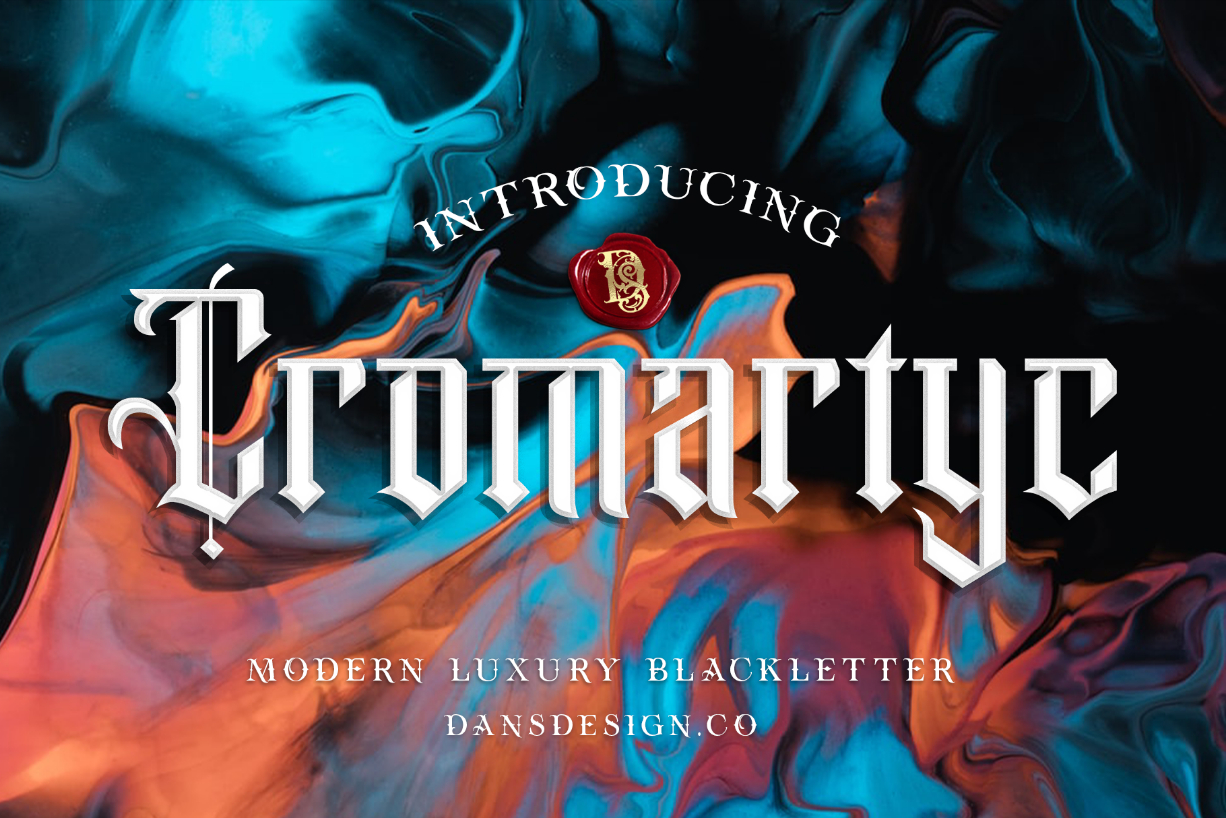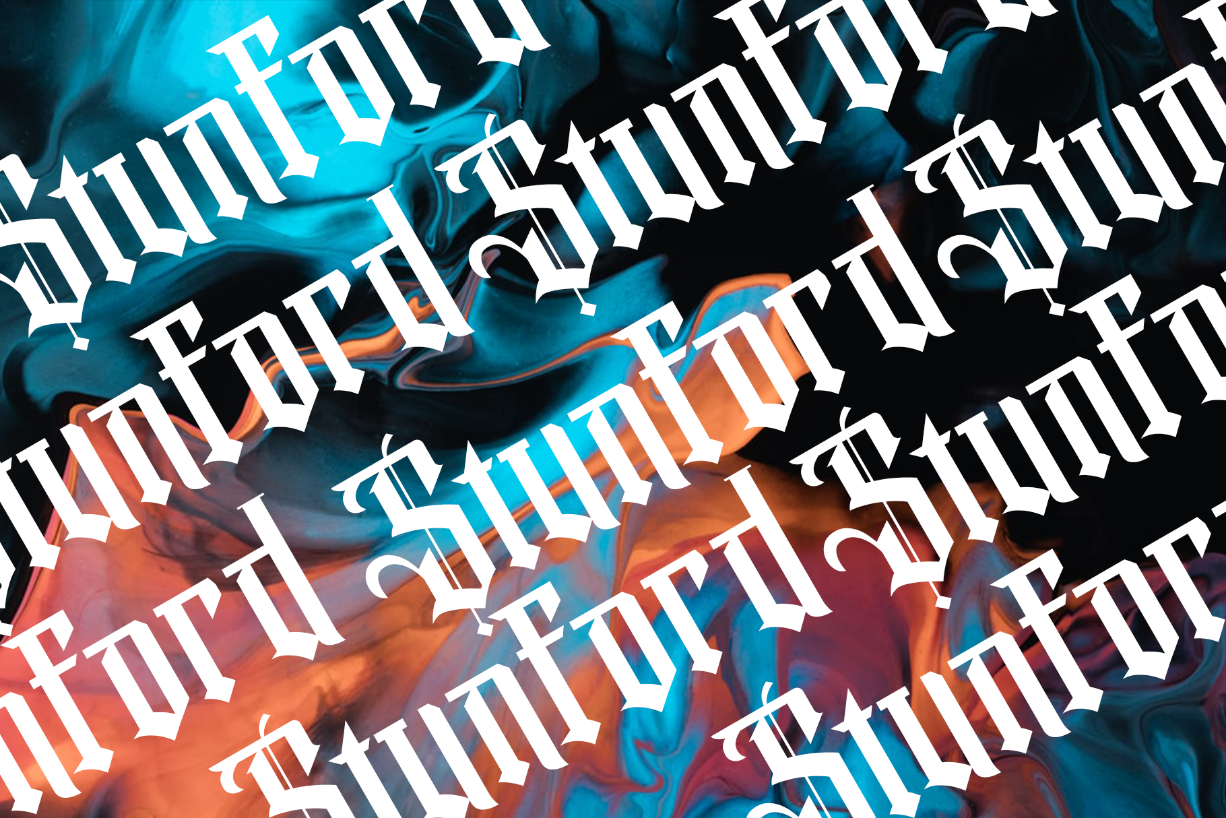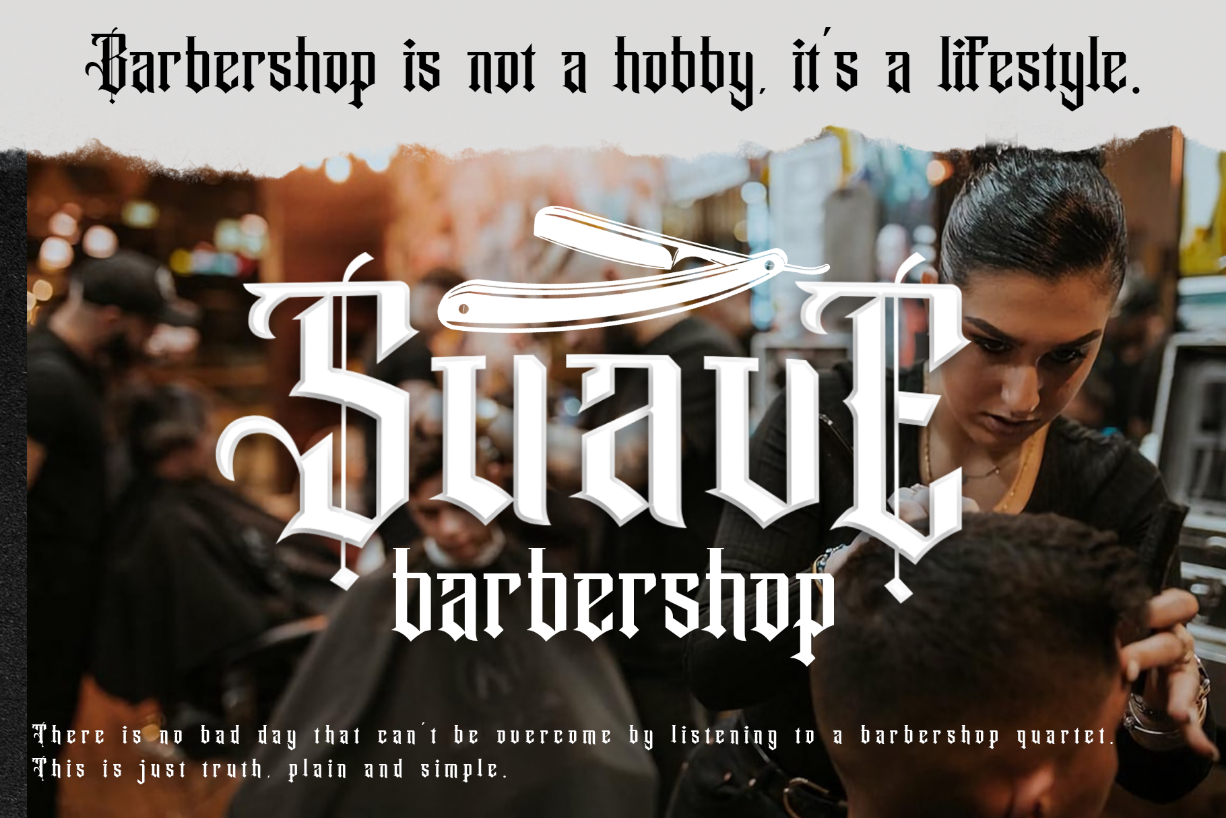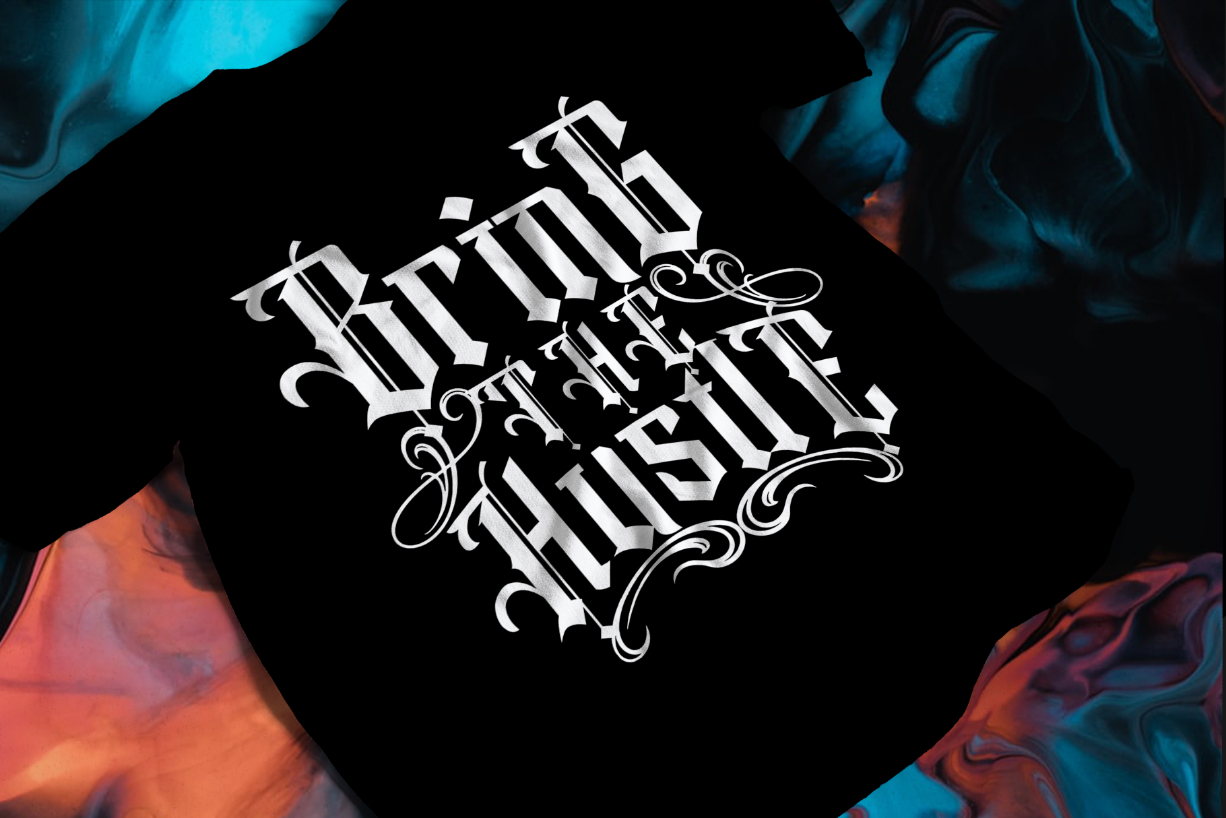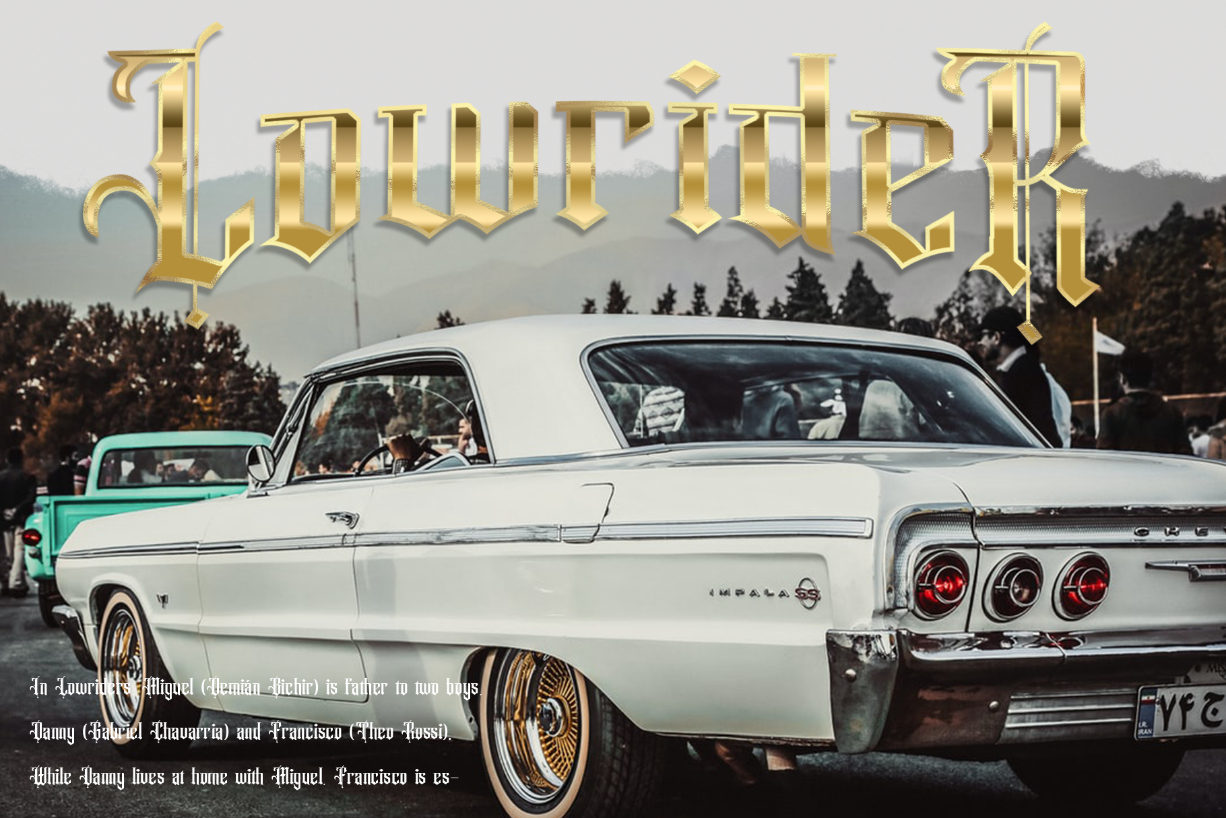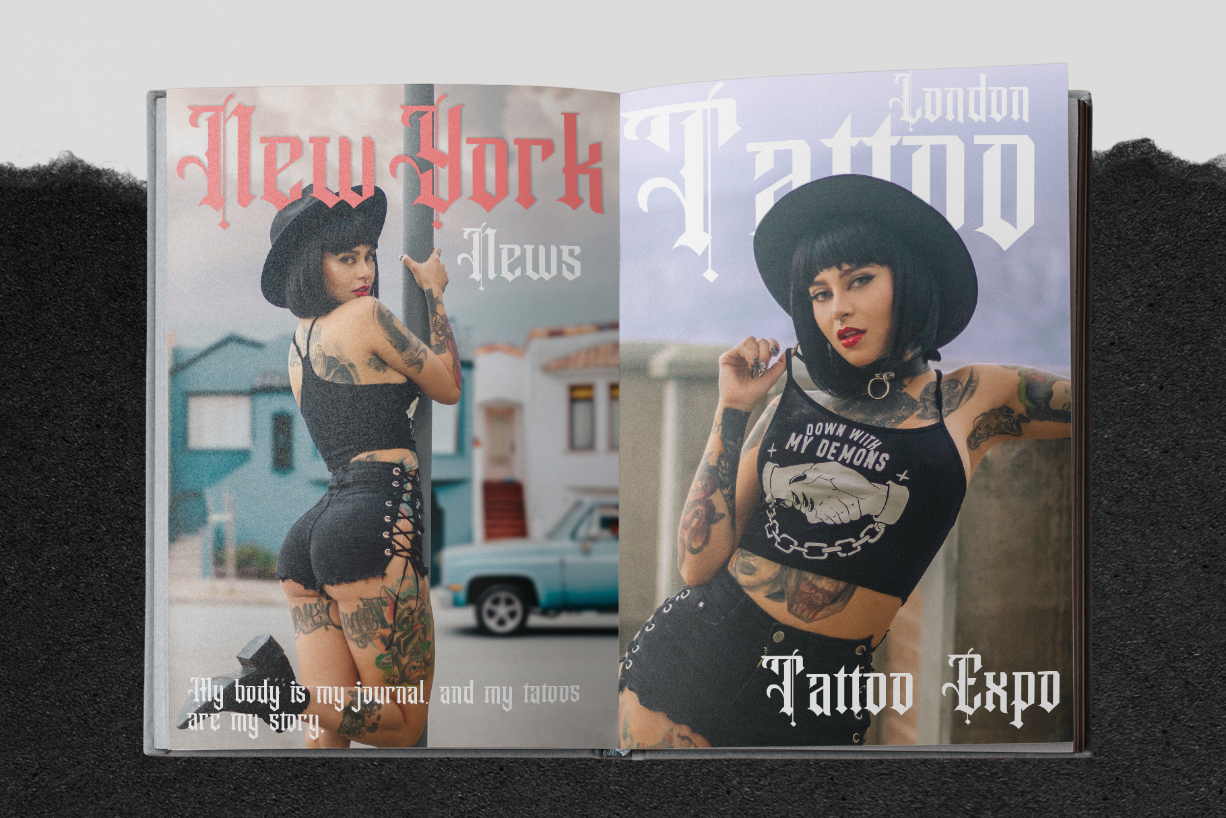
About Cromartyc Font
Cromartyc is a modern blackletter font. Cromartyc is great for product logo, poster title, headline, packaging, badge, packaging logo, clothing brand logo, Vintage design, and much more.